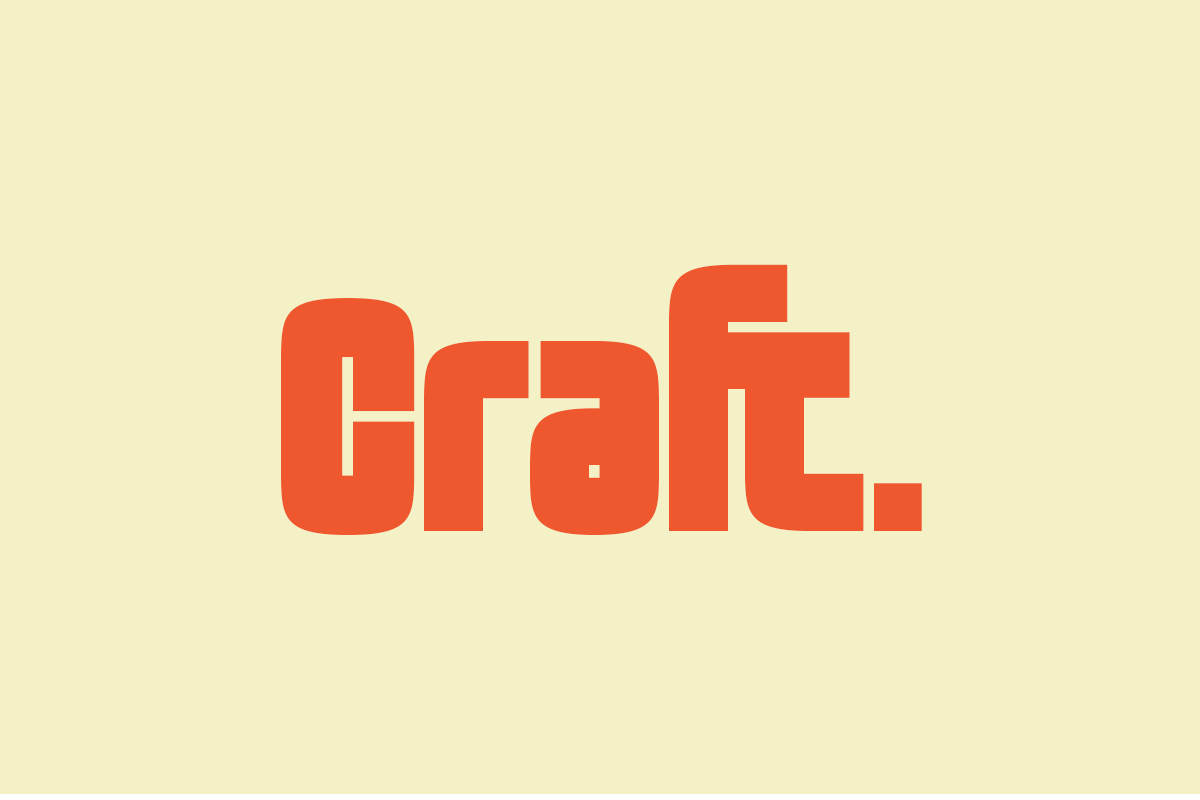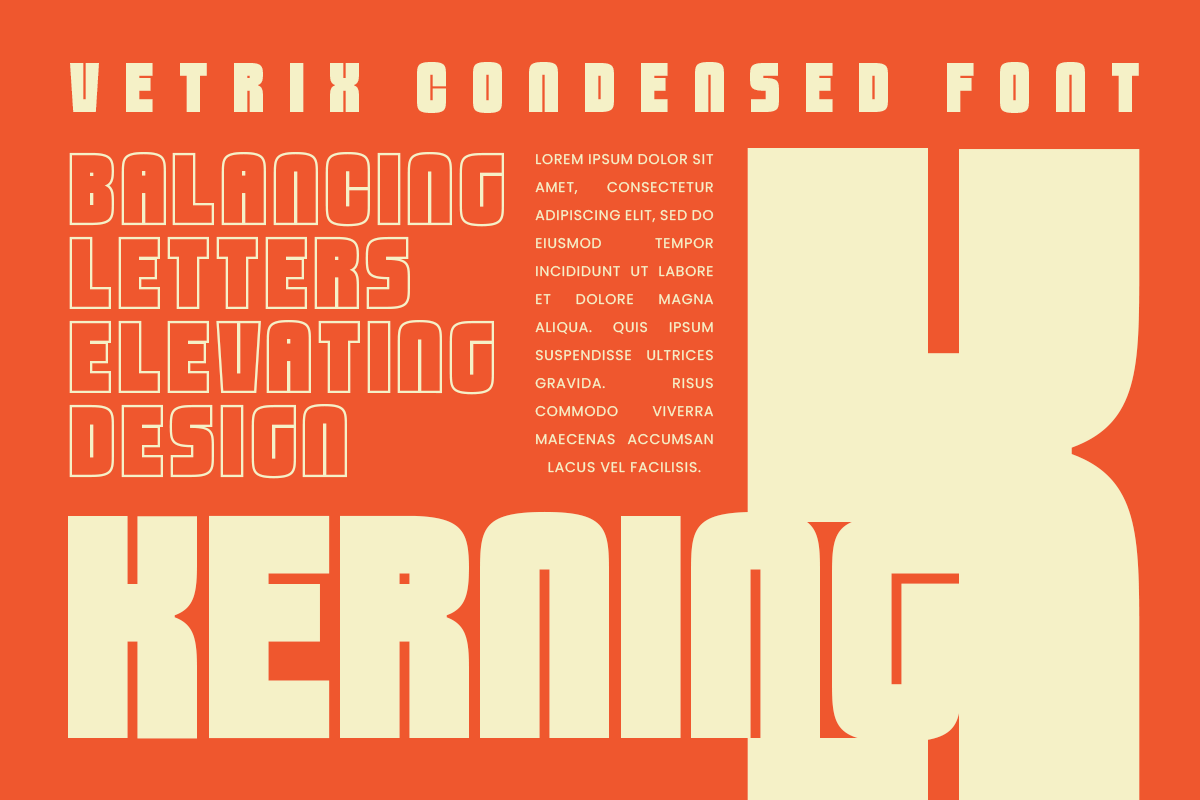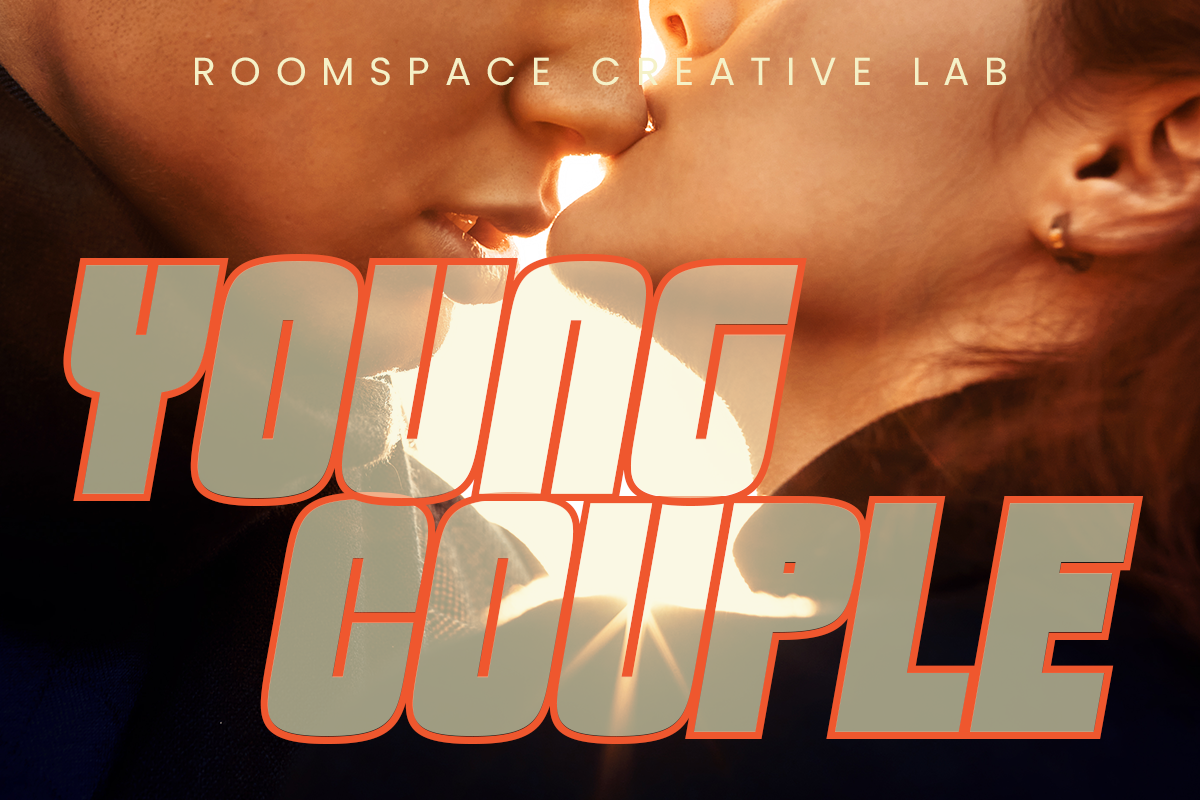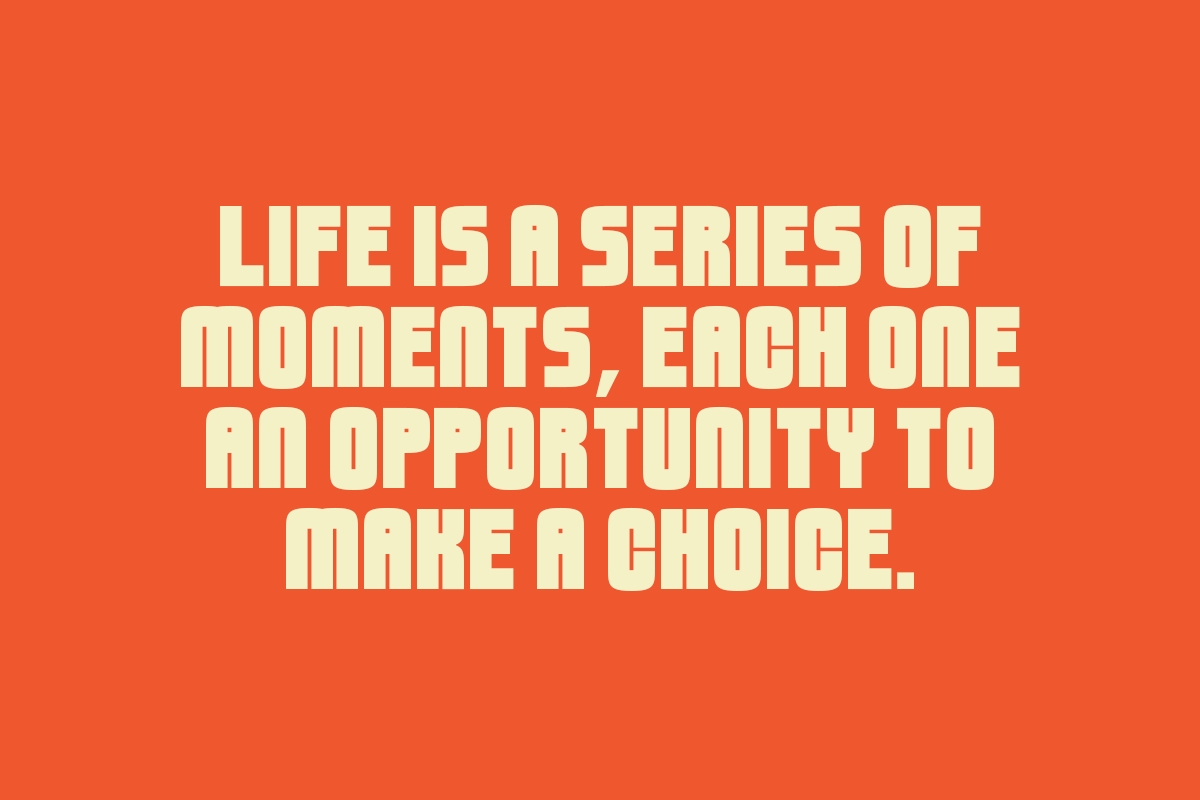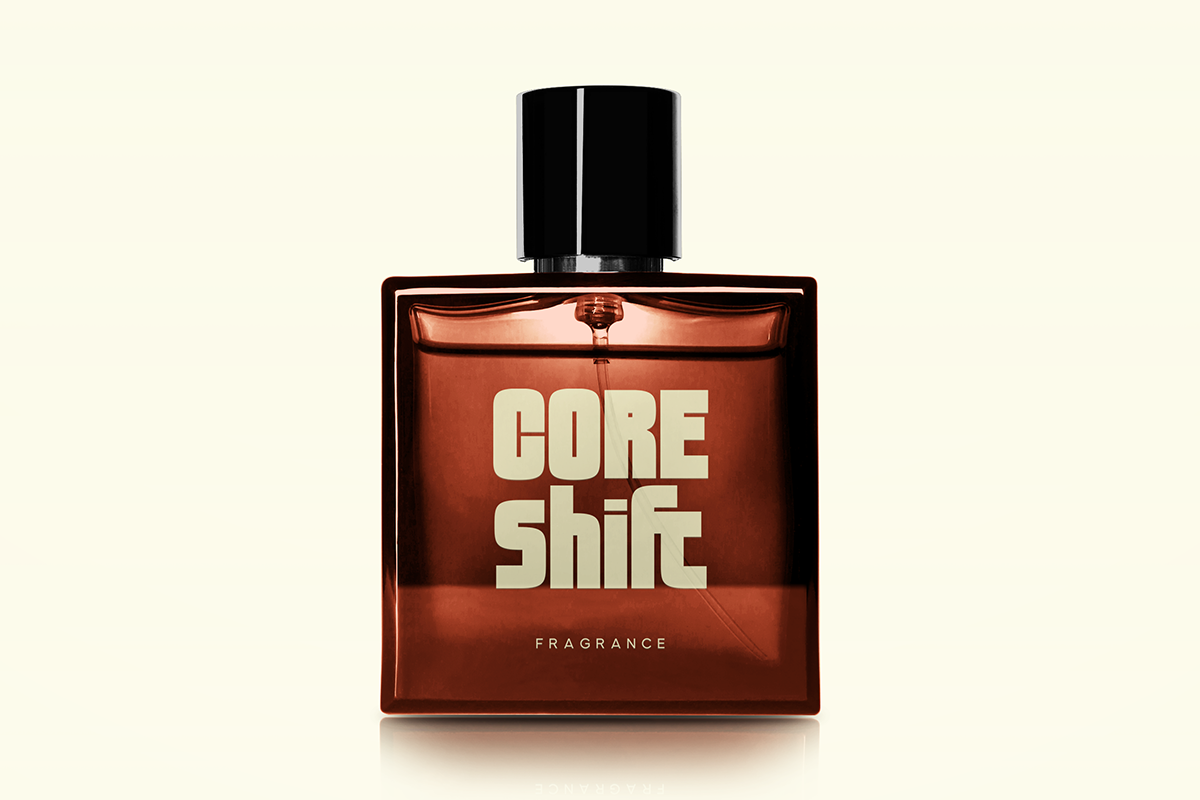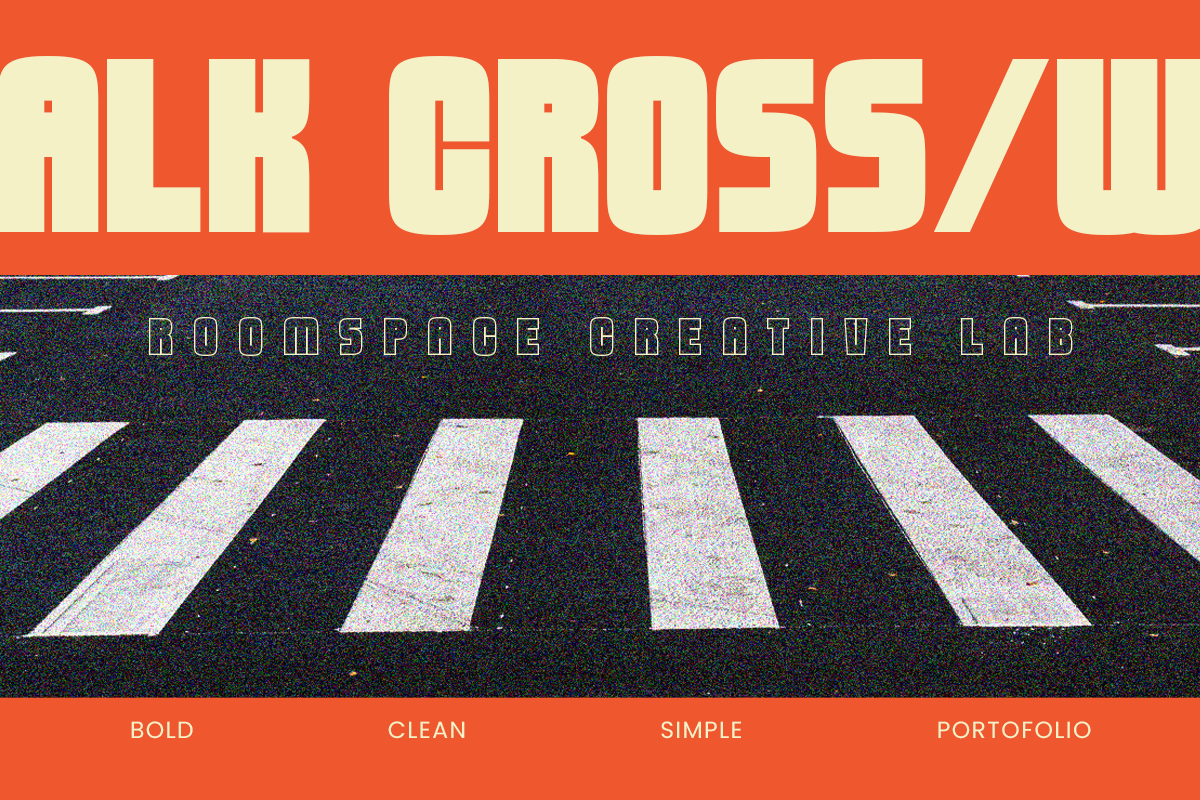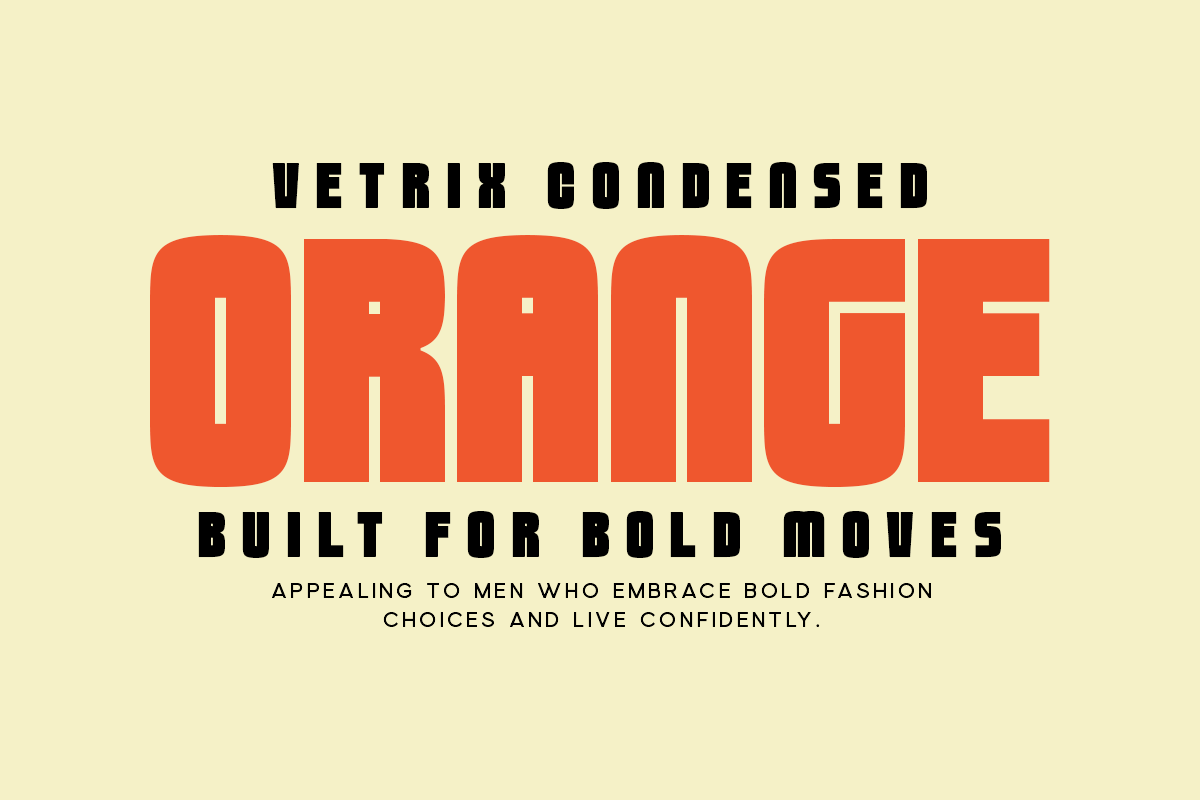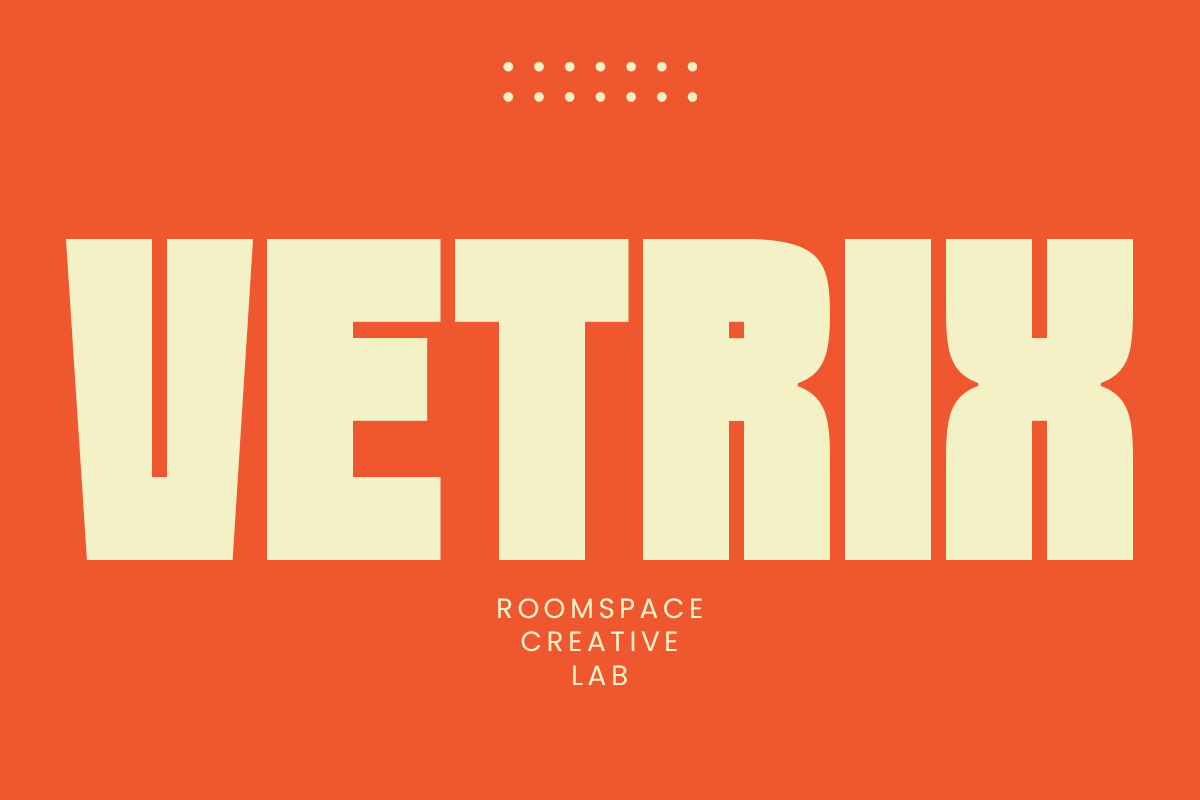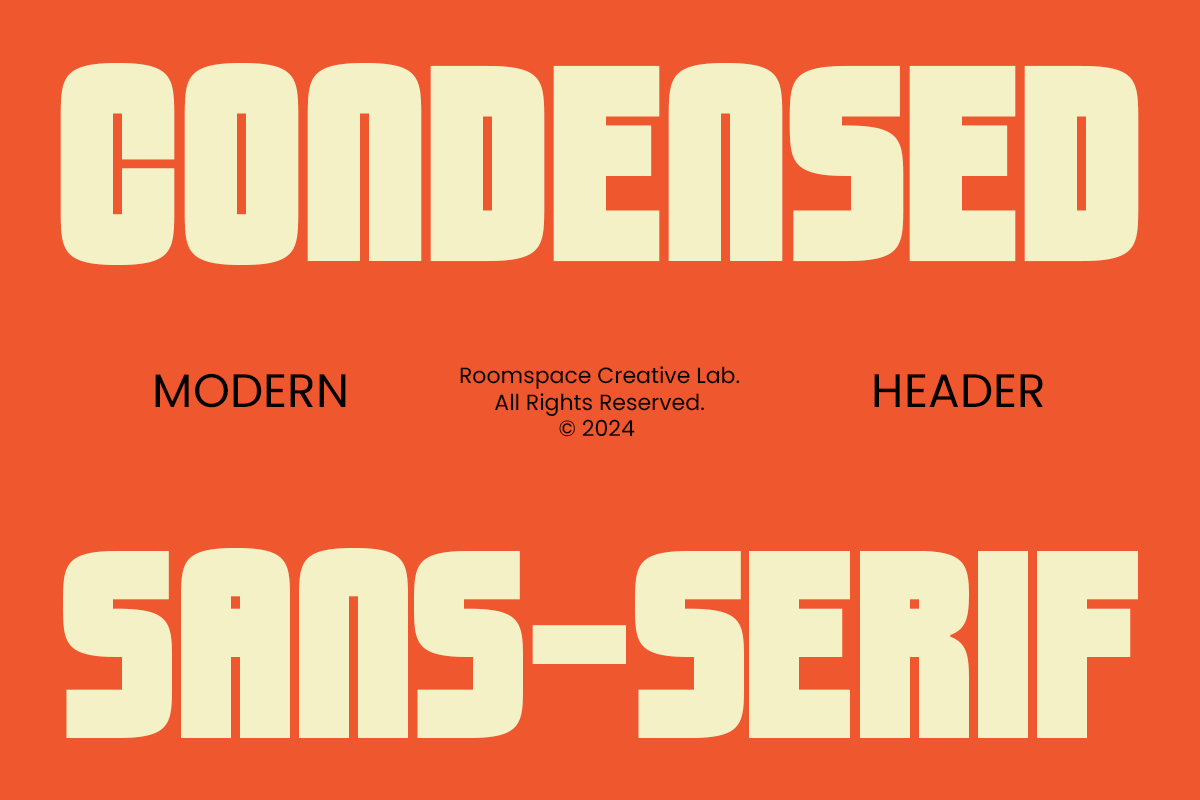
Vetrix - Bold Sans Serif Font
Vetrix, a sans serif font crafted to give your designs a stylish and futuristic edge. Vetrix offers a high level of readability with a unique twist – some capital letters are specially modified, providing a creative yet cohesive look across every letterform.
This font is perfect for branding, logo designs, product packaging, or any design project that requires a distinct, modern feel. Whether you're a designer, a business owner, or just someone looking to add a contemporary vibe to their projects, Vetrix has got you covered!